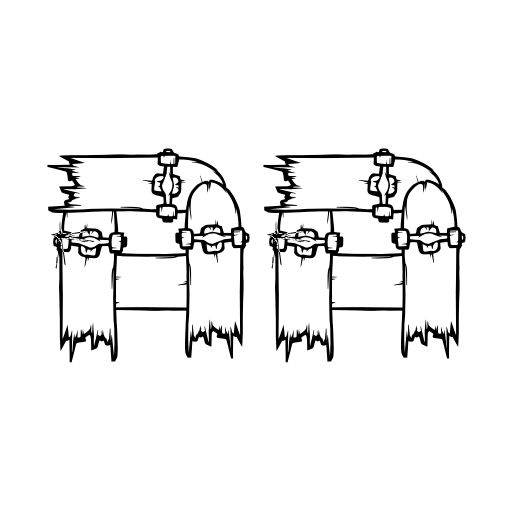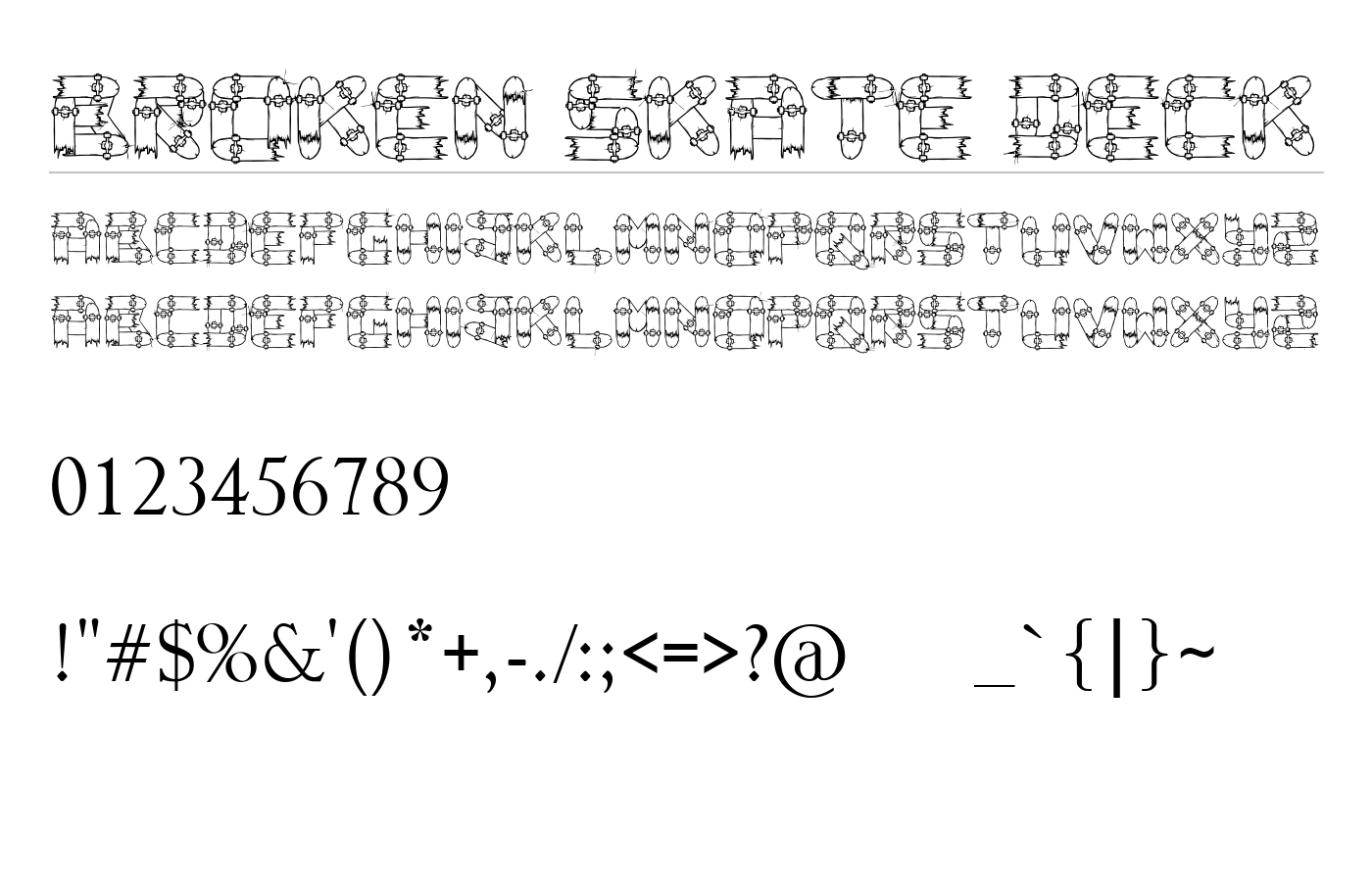
Broken Skate Deck is a playful and edgy display font that mimics the look of worn, broken skateboard decks connected by their wheels, creating a bold, textured effect. Its uppercase characters are highly stylized and expressive, making it perfect for streetwear brands, skate culture designs, posters, and youth-oriented projects that want to convey a rebellious, energetic vibe. This font stands out best in large sizes for headlines and logos where its detailed, graphic style can fully shine.
Broken Skate deck Font
About Broken Skate deck Font
| Font family | Broken Skate deck Font |